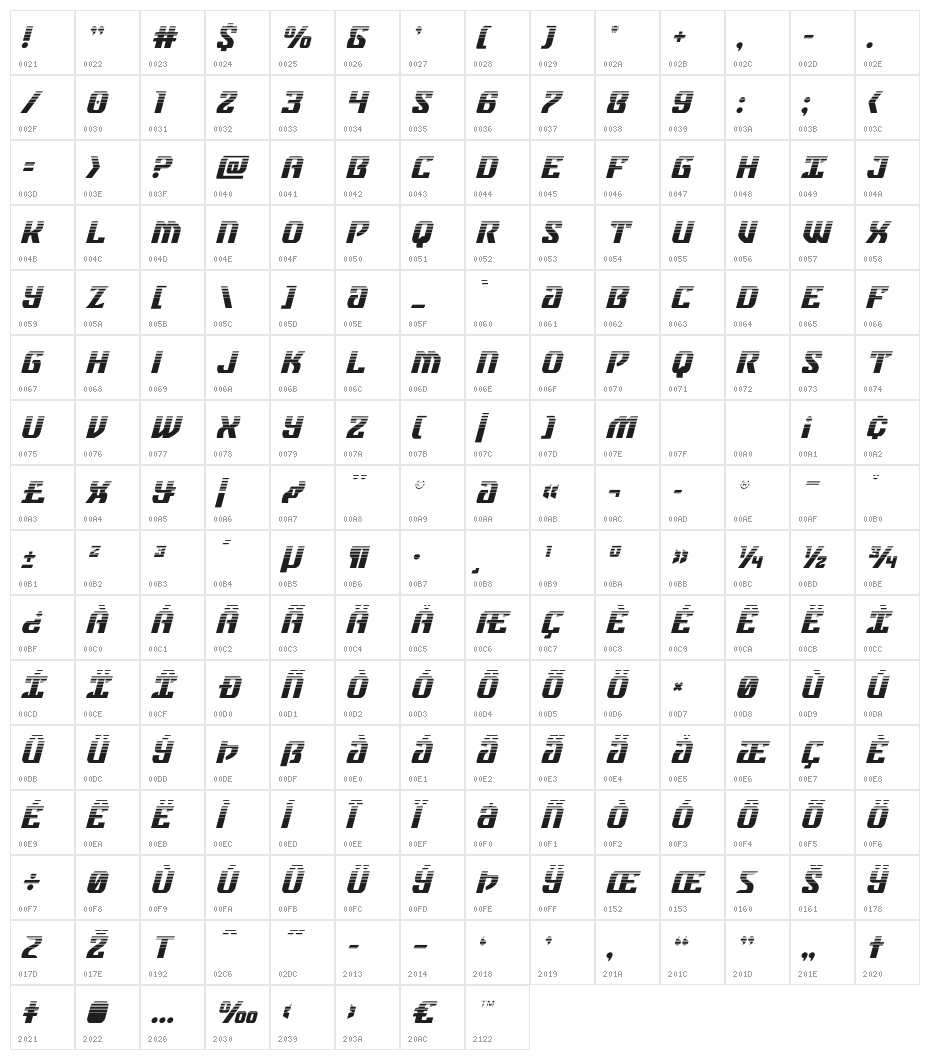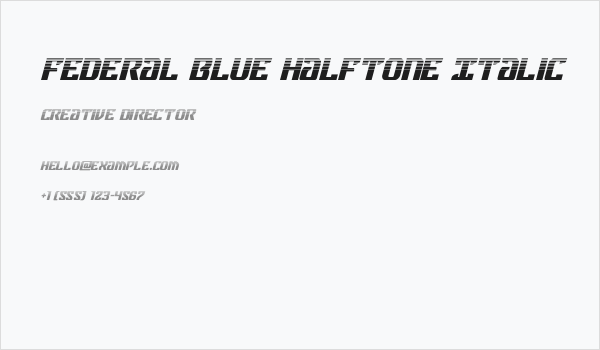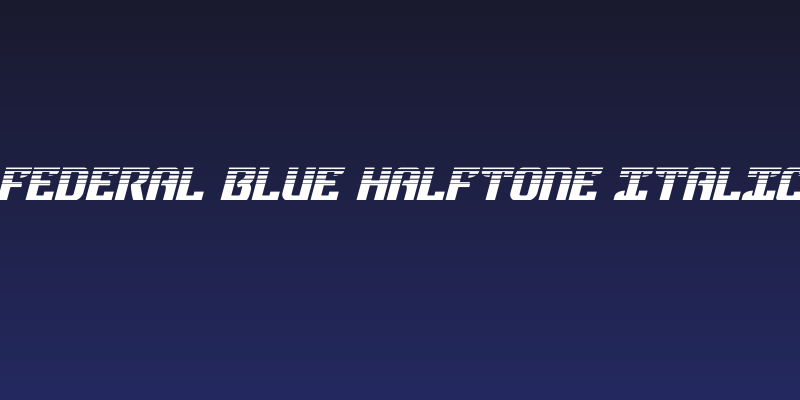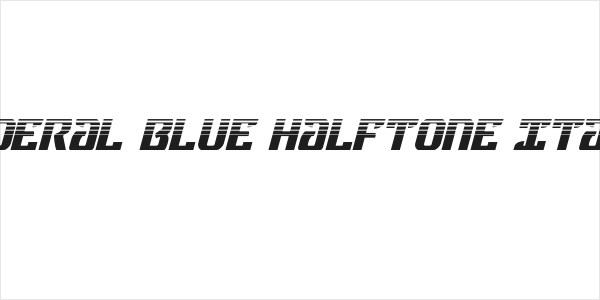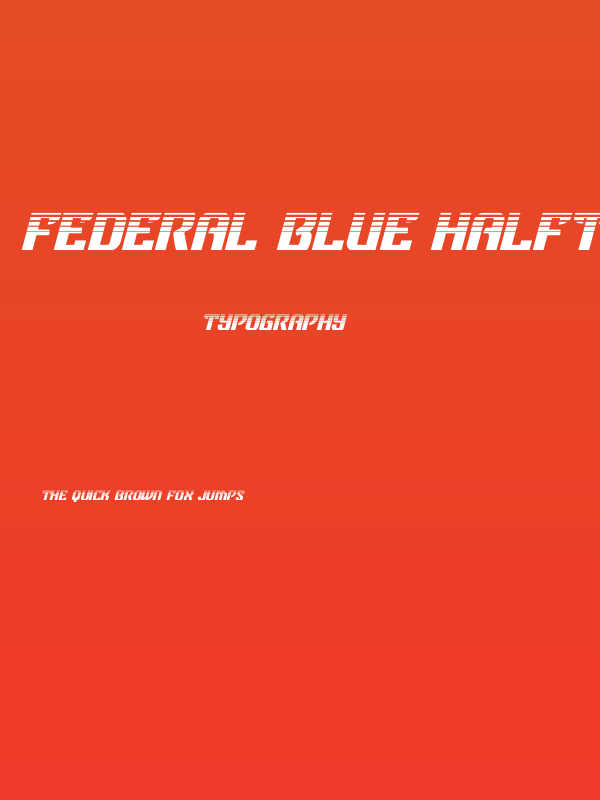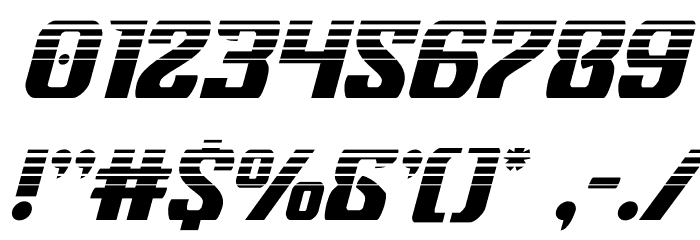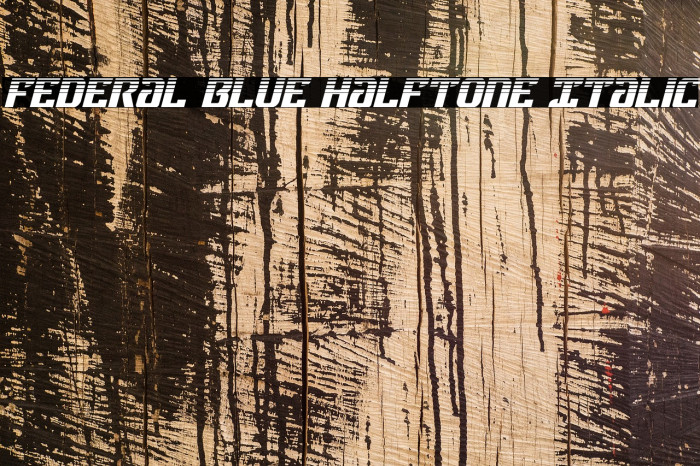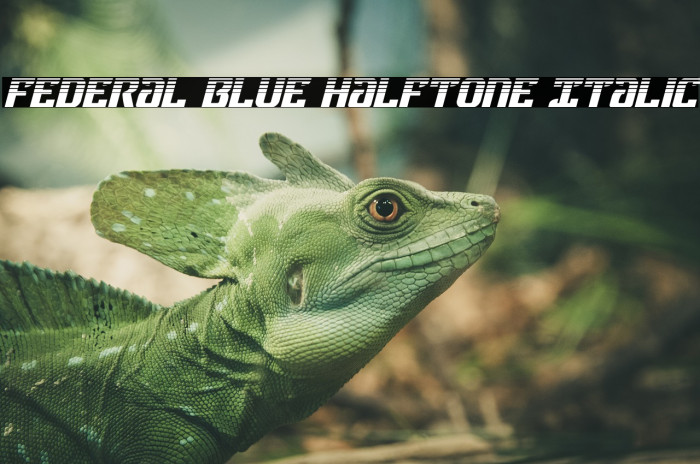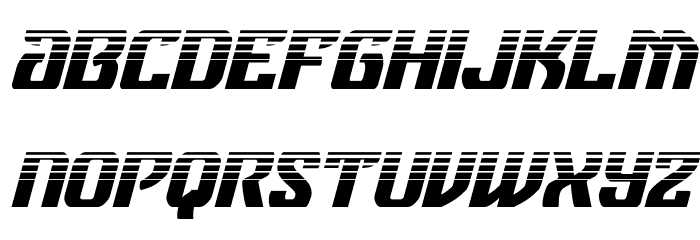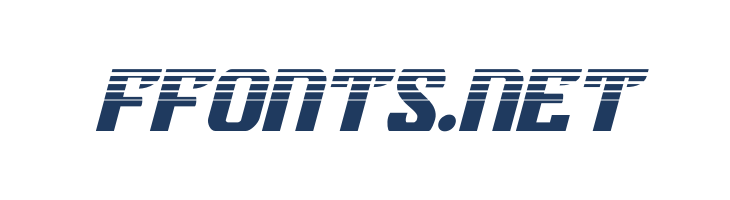
Federal Blue Halftone Italic Font
Federal Blue Halftone Italic Description
This font features a bold, italicized style with a unique halftone effect that creates a sense of movement and dynamism. The uppercase and lowercase letters are designed with a futuristic aesthetic, incorporating sharp angles and a slanted orientation. The numbers and special characters maintain this theme, ensuring consistency across all glyphs. The halftone pattern adds a textured appearance, making it stand out in digital and print media. This font is ideal for projects that require a modern, edgy look, such as technology branding, sports team logos, or dynamic advertising campaigns.
| Proposed Projects | Ideal for technology branding, sports team logos, dynamic advertising campaigns, and futuristic designs. |